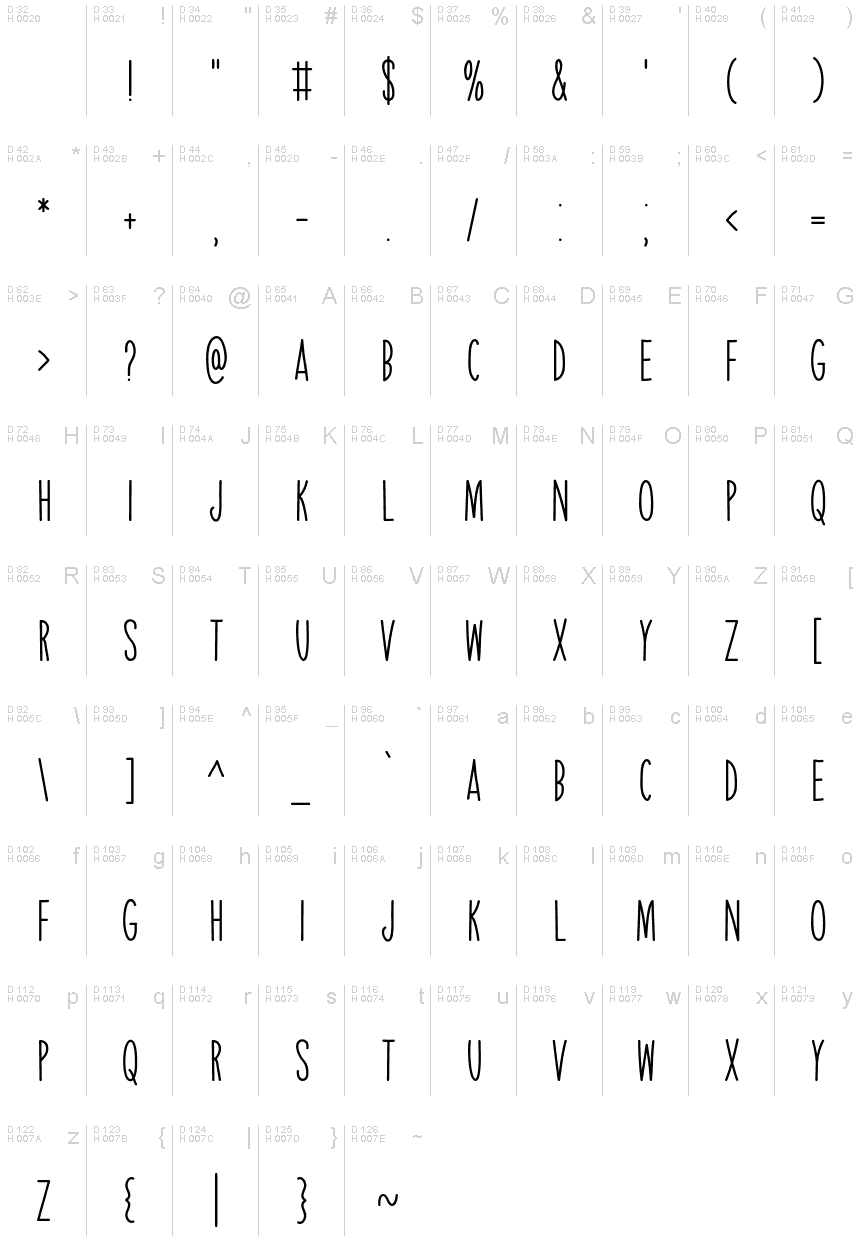
Enormous Joy
Enormous Joy, a delightful handwritten font by Md Shohail Bhuian, exudes a whimsical charm with its light weight and extra-condensed width.
Perfect for adding a touch of elegance to your creative projects, this font is well-suited for wedding invitations, greeting cards, and personal stationery. Its playful strokes and unique personality will bring a sense of joy to any design. With Enormous Joy's spanking style, captivate your audience and make a lasting impression in branding materials or social media graphics.